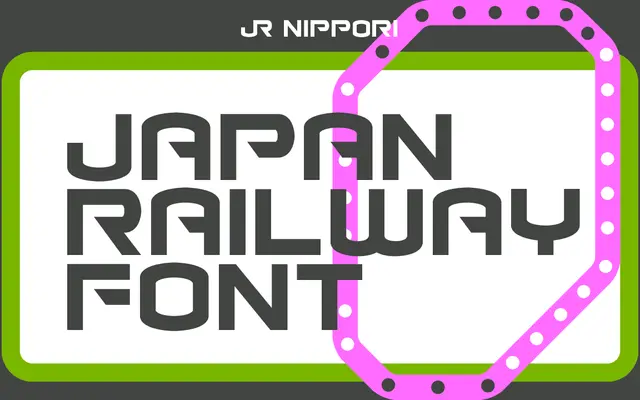
BD Nippori
Type Different · 2002
A geometric display face drawn from the JR East railway logotype, named after a station on Tokyo's Yamanote Line.
Taking its cue from the abbreviated «JR» logotype of East Japan Railway Company, BD Nippori distils that clean, transport-signage geometry into a Latin display typeface. The family covers a broad range of Latin Extended characters across Western European languages, keeping the coverage practical for editorial and branding use. Its single style leans heavily on the source material's bold, legible simplicity.
Inspired by the JR East railway logotype, BD Nippori has a strong geometric, signage-derived character typical of display typefaces drawn from transport and corporate logotype sources.